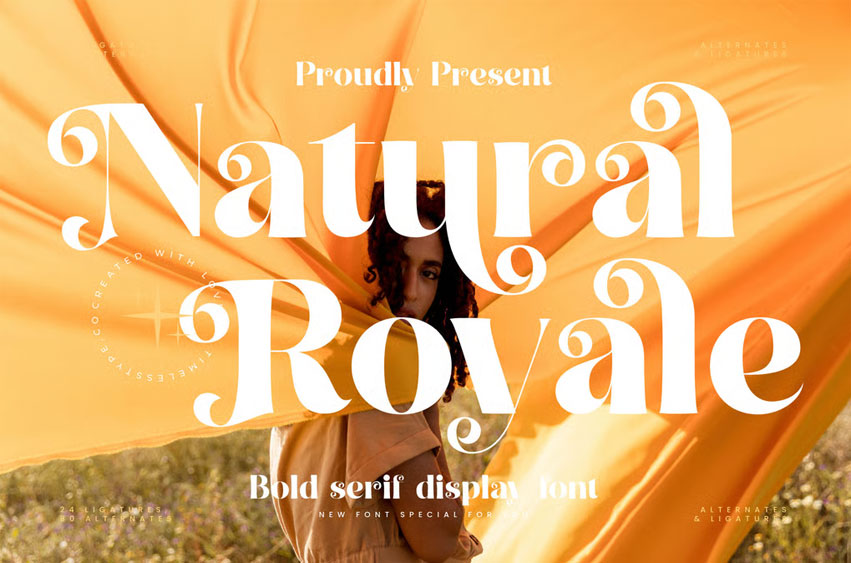
Natural Royale Font
Natural Royale Font is a bold serif display font that blends elegance with artistic curves, creating a modern yet timeless aesthetic. Its distinctive alternates and stylish ligatures make it an ideal choice for luxury branding, fashion editorials, packaging, invitations, and statement logos. Designed to stand out with sophistication and personality, Natural Royale brings a refined and dramatic presence to any creative project.